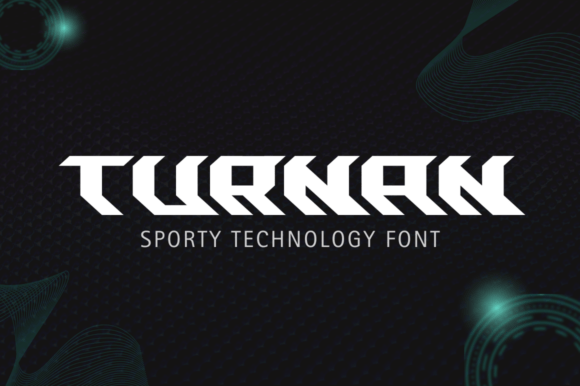
Introducing Turnan Font: The Ultimate Bold and Futuristic Sporty Technology Font
In the world of typography, fonts play a crucial role in conveying the message and tone of a brand. When it comes to creating a bold and futuristic sporty technology font, Turnan is the perfect choice. Designed to deliver impact, energy, and movement, Turnan is inspired by digital speed, athletic dynamism, and industrial precision. In this article, we’ll explore the features and benefits of Turnan font and how it can elevate your branding to the next level.
What is Turnan Font?
Turnan is a bold and futuristic sporty technology font designed to bring a high-tech edge to your branding. Its sharp angles, geometric structure, and tech-forward appearance make it ideal for sportswear, automotive branding, gaming, drone tech, and innovation-themed visuals. With its unique design, Turnan font is perfect for brands that want to convey a sense of speed, energy, and movement.
Inspiration Behind Turnan Font
Turnan font is inspired by digital speed, athletic dynamism, and industrial precision. The designer aimed to create a font that captures the essence of high-tech innovation and sports performance. The result is a font that exudes confidence, energy, and a sense of cutting-edge technology.
Key Features of Turnan Font
- Bold and Futuristic Design: Turnan font has a bold and futuristic design that is perfect for creating a lasting impression.
- Sharp Angles and Geometric Structure: The font features sharp angles and a geometric structure that gives it a tech-forward appearance.
- Uppercase Letters, Numerals, and Punctuation: Turnan font includes uppercase letters, numerals, and a broad range of punctuation to support your creative layout needs.
Use Cases for Turnan Font
Turnan font is versatile and can be used in various contexts, including:
- Sports Brand Logos and Packaging: Turnan font is perfect for sports brands that want to create a bold and dynamic logo or packaging.
- Techwear or Activewear Promotions: The font is ideal for promoting techwear or activewear products, conveying a sense of high-tech innovation and performance.
- Game UI and Esports Graphics: Turnan font can be used to create engaging game UI and esports graphics that require a bold and futuristic font.
- Drone and Gadget Advertising: The font is perfect for advertising drone and gadget products, conveying a sense of cutting-edge technology and innovation.
- Futuristic Poster Designs: Turnan font can be used to create futuristic poster designs that require a bold and dynamic font.
- Sci-Fi or Speed-Themed Typography: The font is ideal for sci-fi or speed-themed typography projects that require a bold and futuristic font.
Benefits of Using Turnan Font
Using Turnan font can bring several benefits to your branding, including:
- Increased Visibility: The bold and futuristic design of Turnan font can help increase visibility and make your brand stand out.
- Improved Brand Recognition: The unique design of Turnan font can help improve brand recognition and create a lasting impression.
- Enhanced Credibility: Using a high-quality font like Turnan can enhance your brand’s credibility and professionalism.
Tips for Using Turnan Font Effectively
To get the most out of Turnan font, here are some tips for using it effectively:
- Use it Boldly: Turnan font is designed to be bold and futuristic, so don’t be afraid to use it in large sizes or in bold weights.
- Pair it with Simple Backgrounds: To make the most of Turnan font, pair it with simple backgrounds that won’t compete with the font’s bold design.
- Experiment with Colors: Turnan font can be used in a variety of colors, so experiment with different colors to find the one that works best for your brand.
In conclusion, Turnan font is a bold and futuristic sporty technology font that is perfect for brands that want to convey a sense of speed, energy, and movement. With its sharp angles, geometric structure, and tech-forward appearance, Turnan font is ideal for sportswear, automotive branding, gaming, drone tech, and innovation-themed visuals. By using Turnan font, you can increase visibility, improve brand recognition, and enhance credibility. So why wait? Download Turnan font today and take your branding to the next level!
- What is Turnan font? Turnan font is a bold and futuristic sporty technology font designed to deliver impact, energy, and movement.
- What is Turnan font used for? Turnan font is perfect for sportswear, automotive branding, gaming, drone tech, and innovation-themed visuals.